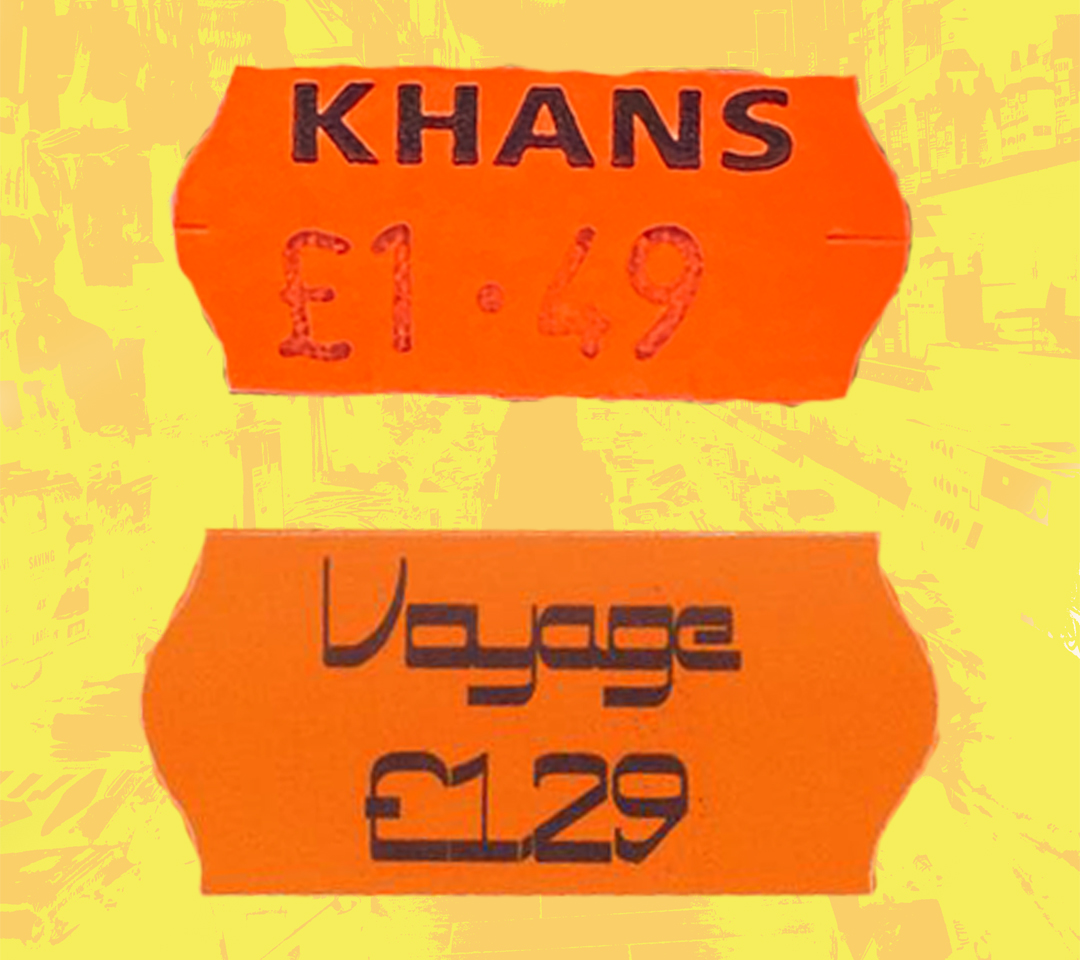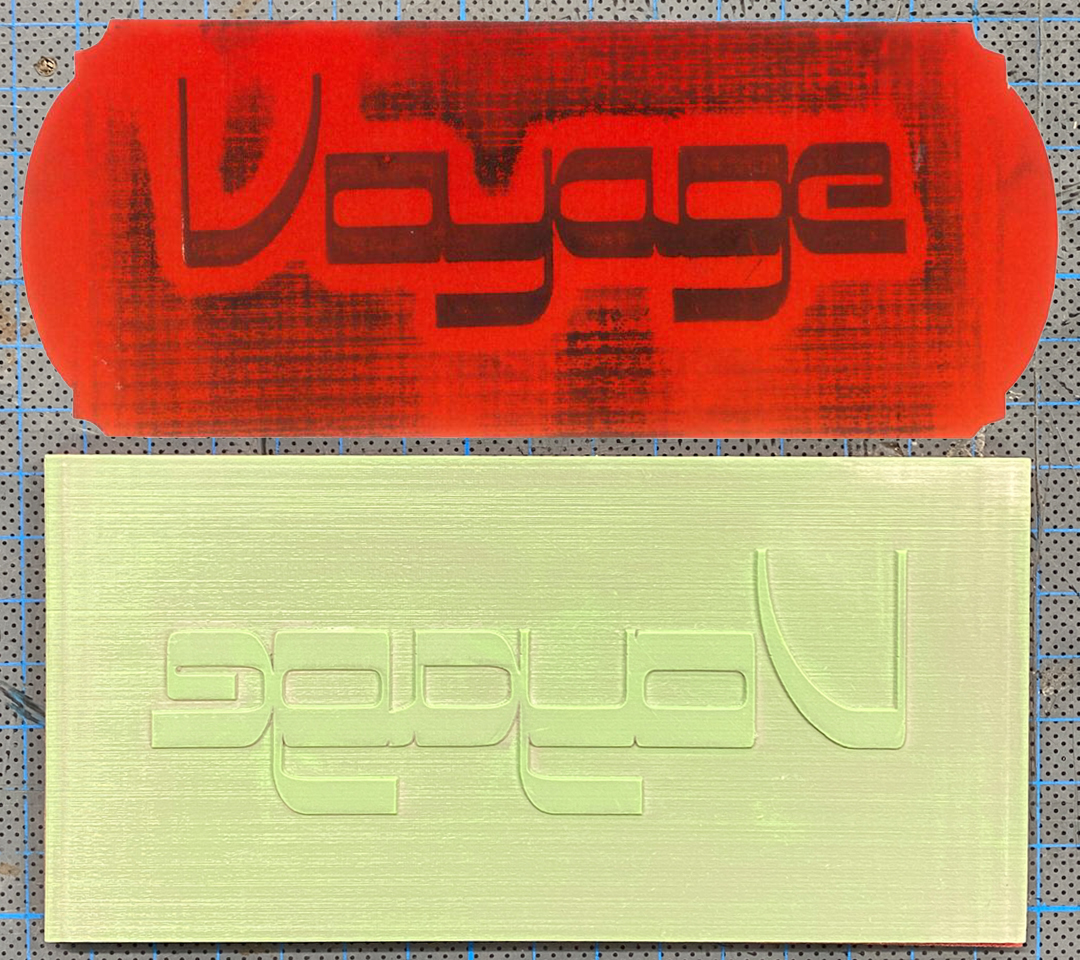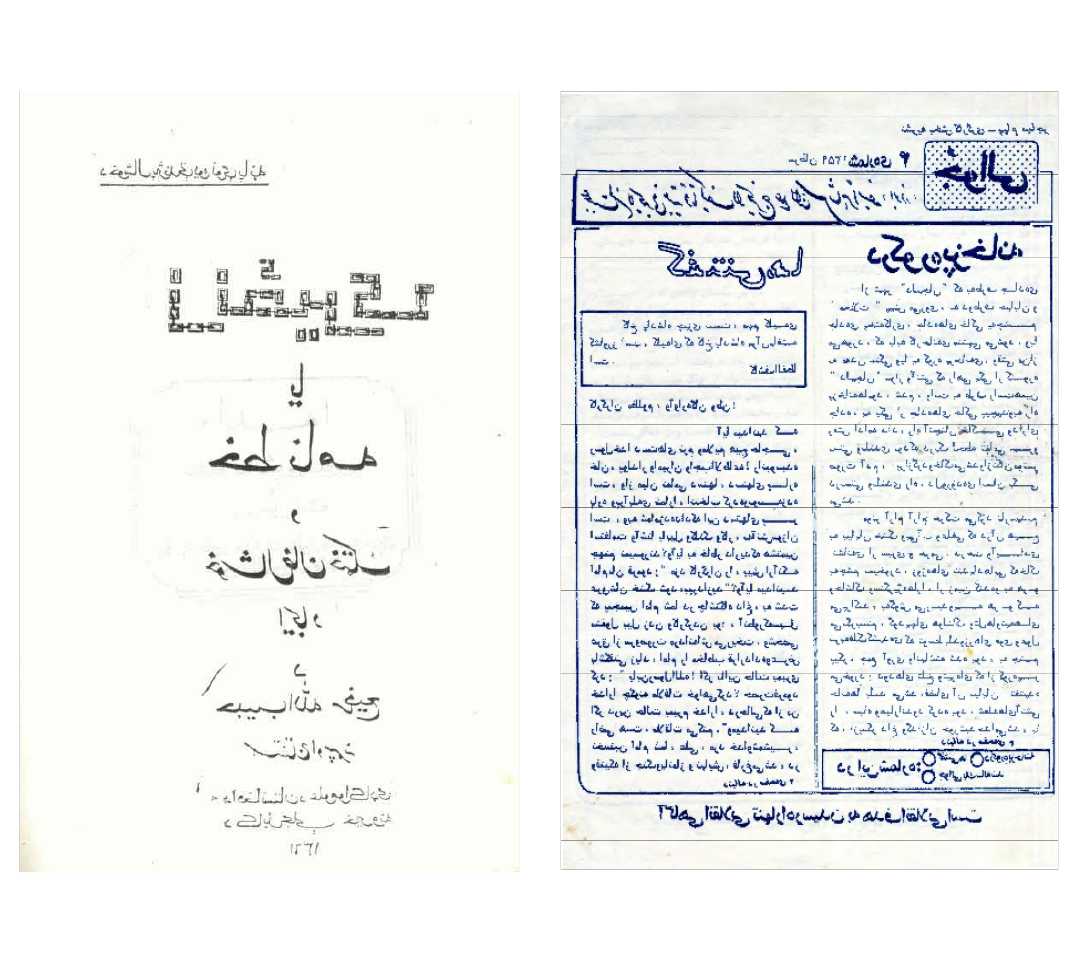
Voyage is a display typeface, created from a connection between the east and west. Showing homage to Dari calligraphy. This typeface is the result of questioning how Latin letters would change when using the properties of Dari, which is written from right to left. Paying respect to the Khan family, the current owners of Khan's bargain store. Voyage shows distance, travelling between languages. Created from a building that has provided its occupiers and community with normality through two World Wars. Allowing a family who had to flee their home country of Afghanistan due to extreme conflict a chance to rebuild their life. Something which the UK should be proud of, not protesting against.